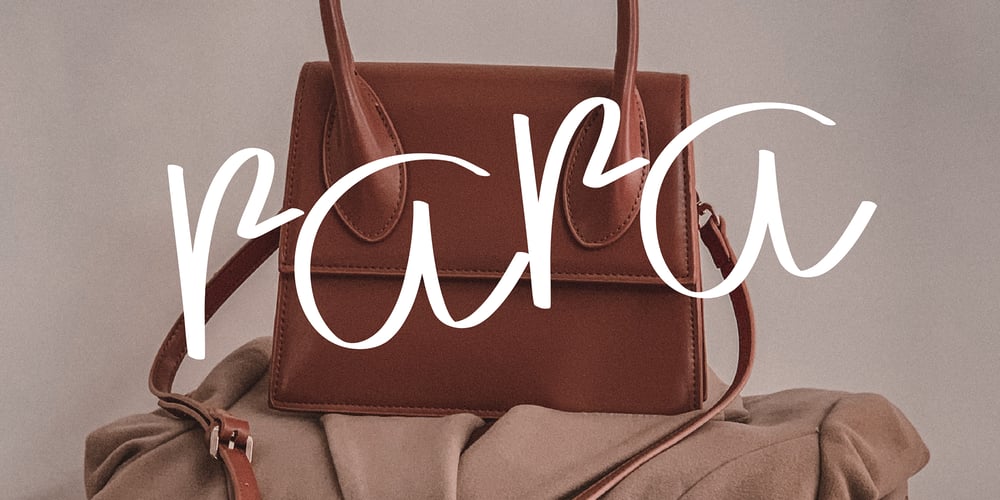
Rara Font Family was designed by Aji Jiaone and published by Jiaone. Rara contains 1 styles and family package options. Rara is a display font that has a free and energetic expressive character. Rara has a letter shape similar to brushes but solid, this font is suitable for use as a medium that complements passive objects